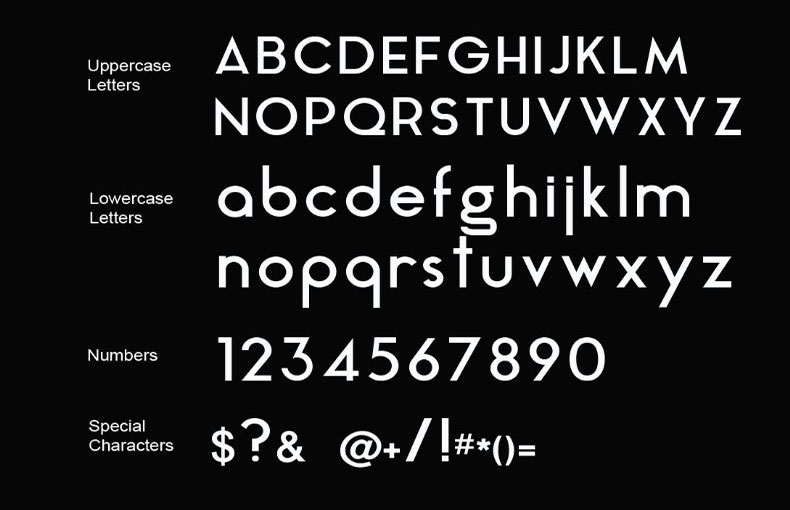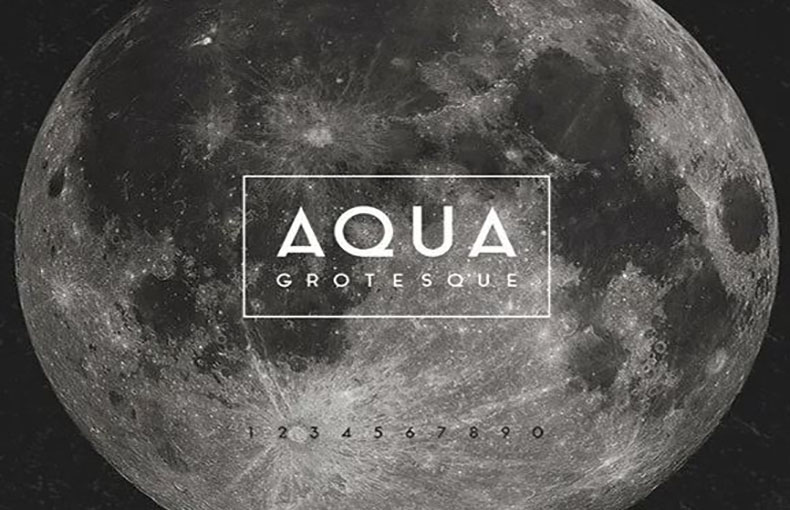
Aqua Grotesque Font is a modern and clean sans-serif typeface designed by Laura Pol. It features a clean and straightforward design that is easy to read and perfect for a wide range of applications.
The font has a neutral and versatile nature that makes it perfect for a range of creative projects, from editorial design and web design to branding and advertising.
Because of its clean, simple lines and minimalist style, it doesn’t detract from the message but rather strengthens it.
This font’s wide character set, which includes lowercase and uppercase letters, digits, punctuation, and special characters, is one of its most distinctive qualities.
This Font Family has come in a single regular style that contains 92 glyphs and also supports 34 different languages.
Its straightforward layout ensures that it is simple to read at both small and big sizes, and its clear lines guarantee that it will stay bright and distinct even when used in demanding printing or digital environments.
You may use this excellent font for a variety of projects because of its trendy appearance. such as logo design, site design, editorial projects, product packaging, logo design, book layouts, album art, merchandise, promotional materials, and much more.
Modern sans-serif typeface Aqua Grotesque is famous for its clean design and understated charm.
It can be used for a variety of creative tasks, including creating posters, websites, and logos.